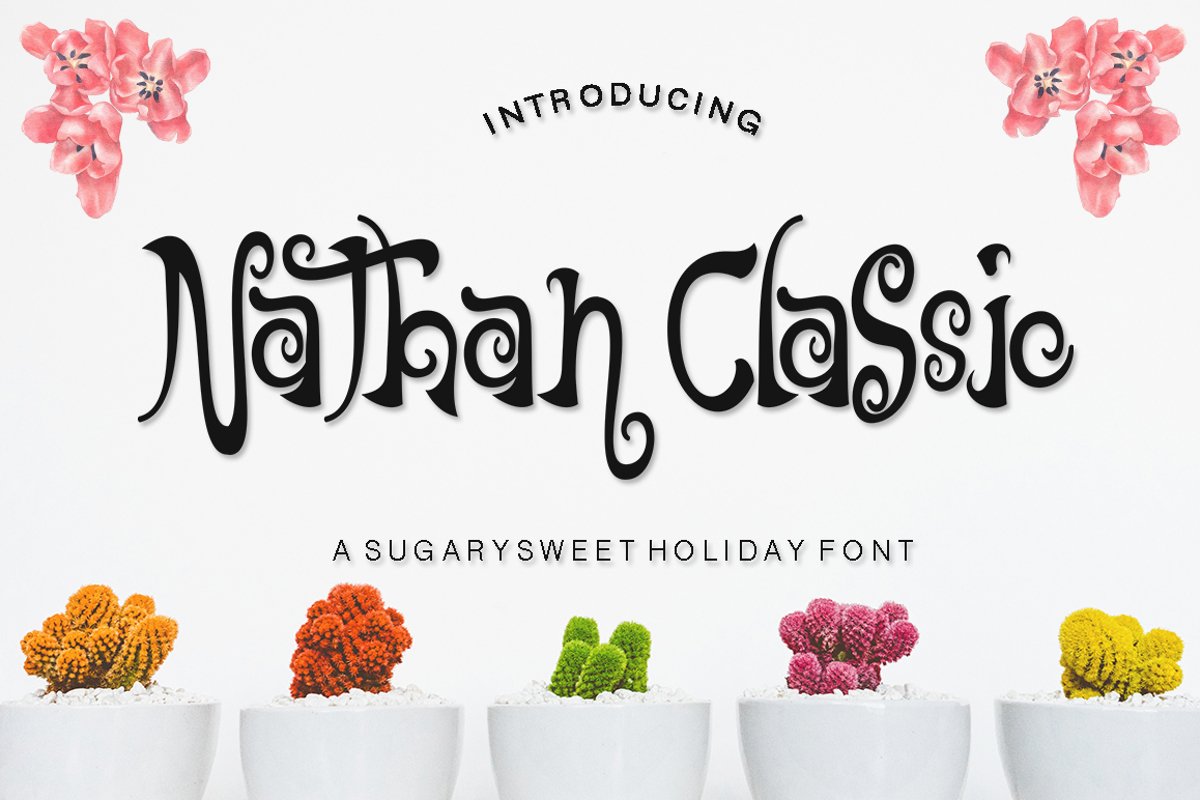
Font Nathan Classic that presents a sweet and unique design!
This font is very suitable for products, logos, invitation letters and many others.
which is designed with soft and sweet packaging.